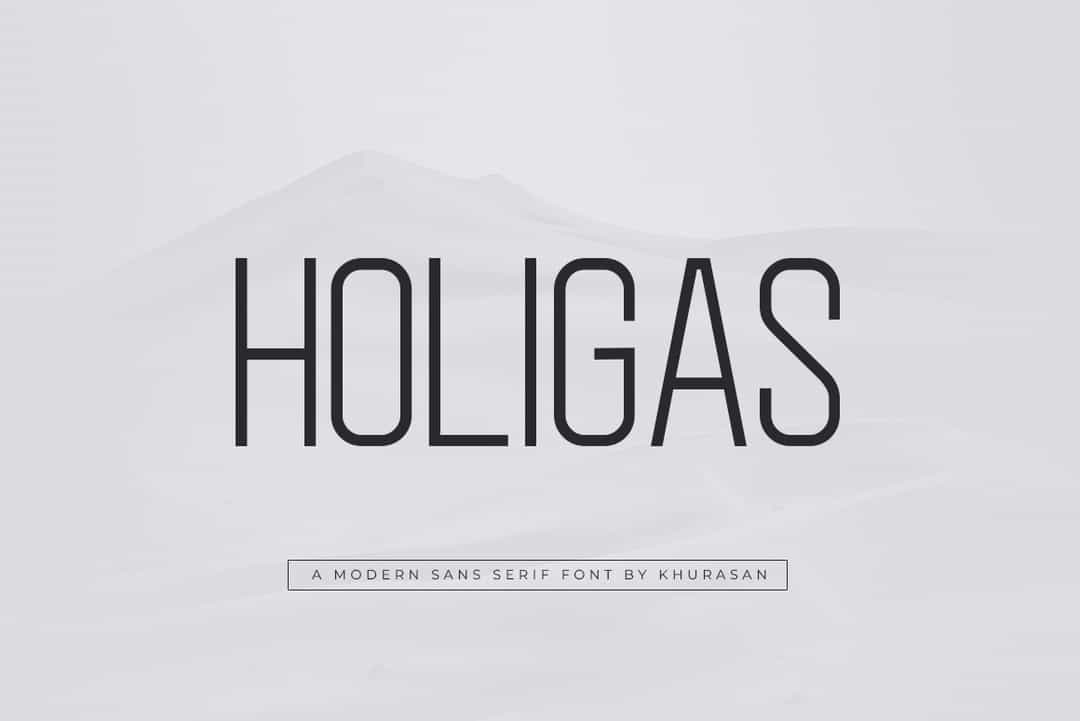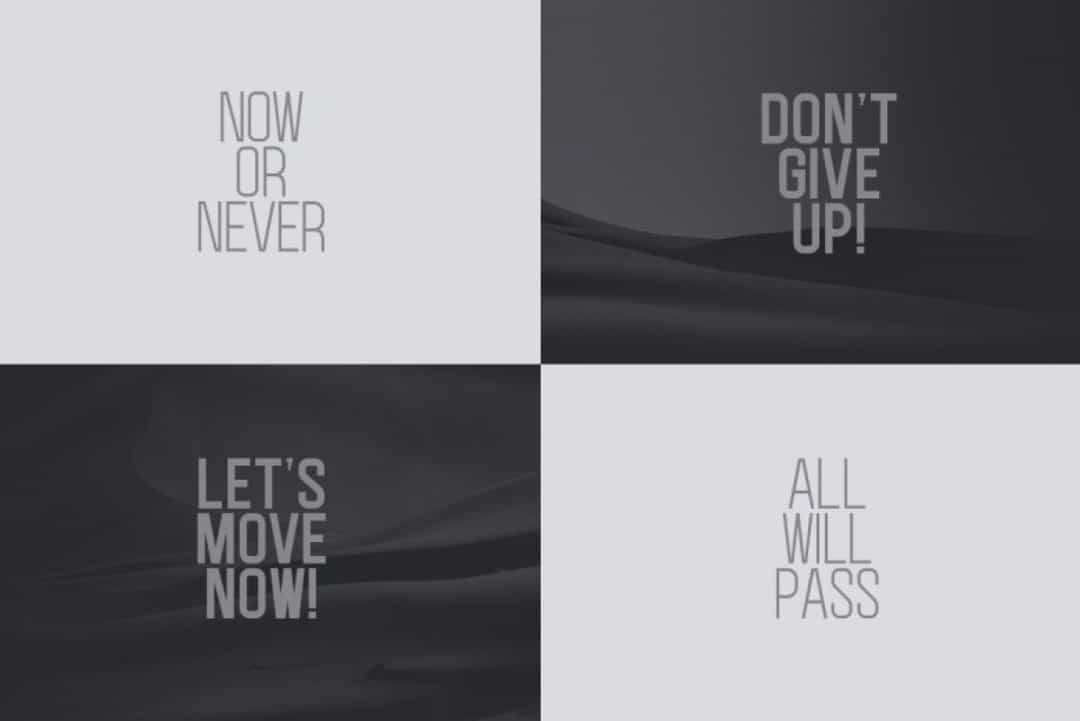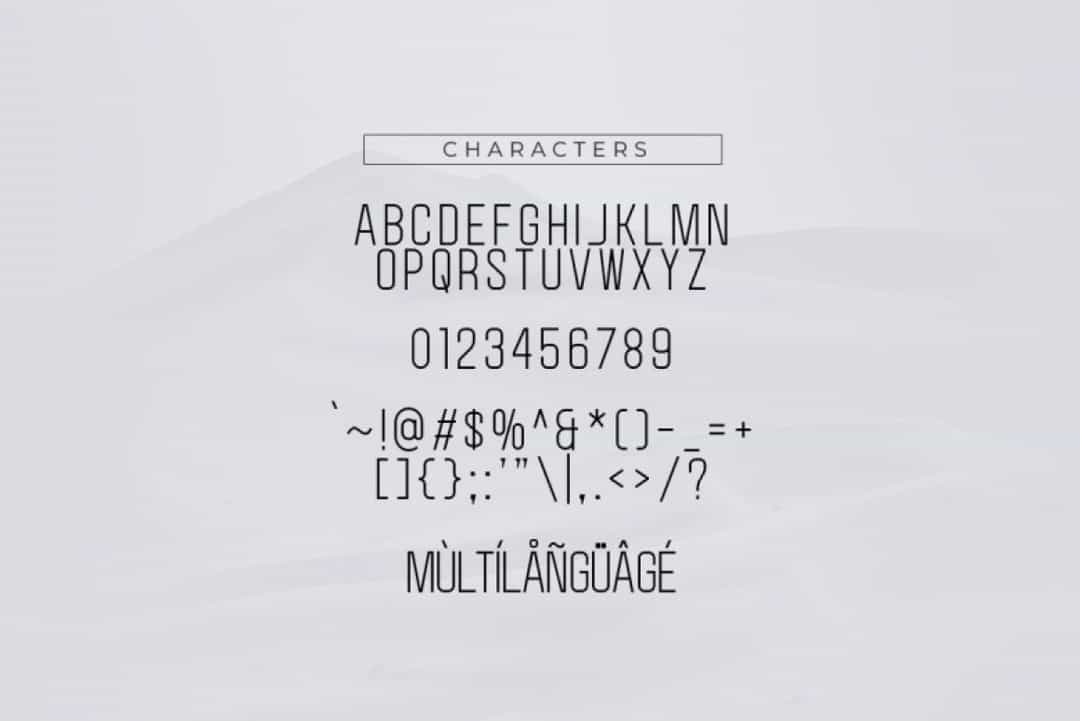
Holigas is an eye-catching contemporary, distinctive and unique sans serif font with light yet smooth implementation, ideal for feminine branding and elegant feminine branding. Easily matching to an array of designs – incorporate Holigas into your creative projects and watch it make an impressionful statement!